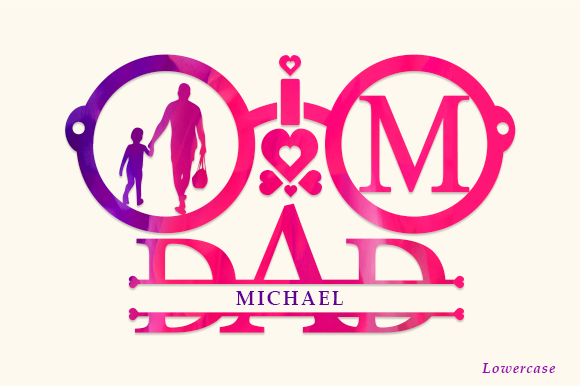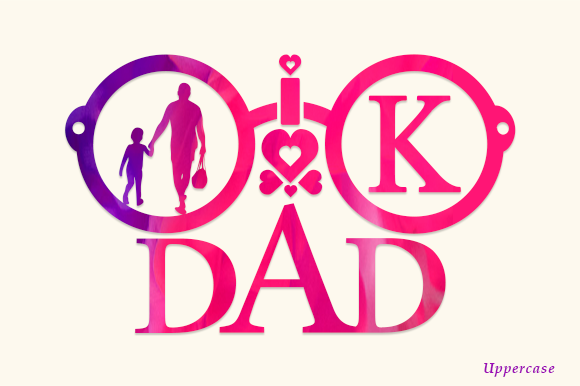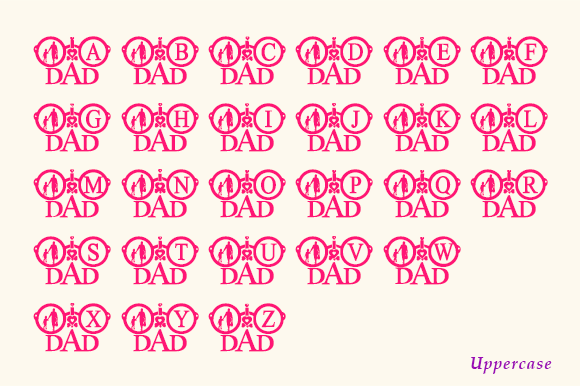
Introduction to I Love Dad Monogram Font
Do you remember the moment when a simple text turned into a stunning visual masterpiece in your creative project? For many designers, it’s the moment when the perfect font is discovered. If you’re one of them, you’re in luck because today we’re going to talk about the ‘I Love Dad Monogram Font’ – a versatile and authentic decorative font that will elevate your designs to the next level.
Whether you’re working on a personal project or a professional design, the I Love Dad Monogram Font is a valuable resource that will add a touch of elegance to your creations. With its high quality design and transparent background, this font is perfect for adding a personal touch to your letters, party invitations, or any other design idea you have in mind. And the best part? It’s available for a free download, making it an excellent choice for designers of all levels.
Key Features of I Love Dad Monogram Font
- Unique Monogram Design: The I Love Dad Monogram Font features a beautiful, hand-drawn design that makes it perfect for creative projects.
- High-Quality Vectors: This font is available in high-quality vector format, making it ideal for professional design work.
- Perfect for Personalized Gifts: The I Love Dad Monogram Font is ideal for creating personalized gifts, such as custom t-shirts, mugs, and cards.
Honest Review: I Love Dad Monogram Font
I recently stumbled upon the I Love Dad Monogram Font, and I was excited to dive in and see what it has to offer. As a designer, I’m always on the lookout for high-quality design resources that can help bring my creative projects to life.
- ✨ The monogram design is perfect for creating custom graphics and designs for Father’s Day or dad-themed projects.
- ⚠️ The design may not be unique or original enough for some designers.
Overall, I’m impressed with the I Love Dad Monogram Font. It’s a great resource for designers who need a high-quality, free font for their creative projects. While there are some limitations, I believe it’s a valuable addition to any designer’s toolkit.
The I Love Dad Monogram Font is a high-quality design resource that can be used in various creative projects. This free download is perfect for adding a personal touch to your designs.
To get the most out of the I Love Dad Monogram Font, use it in combination with other design elements, such as images or shapes, to create a unique and eye-catching design.
The I Love Dad Monogram Font is commonly used in:
Personalized gifts, such as mugs or t-shirts.
Special occasion cards, such as birthday or graduation cards.
Wedding invitations and decorations.